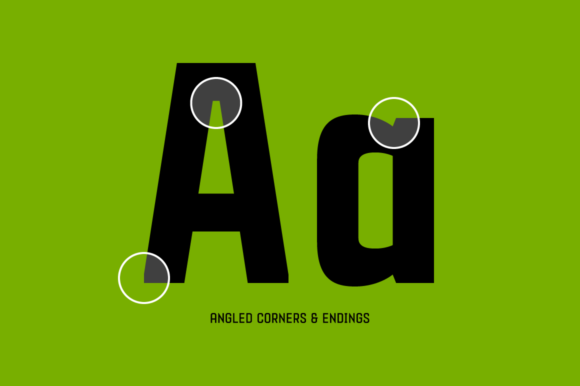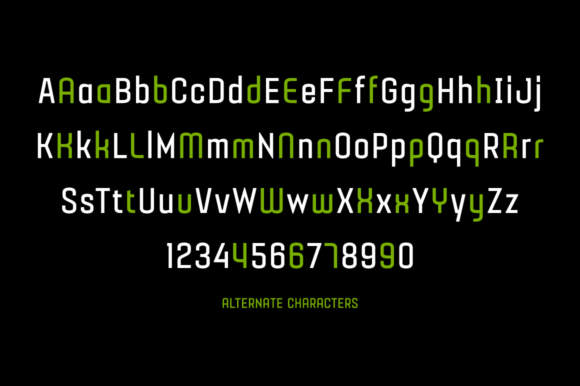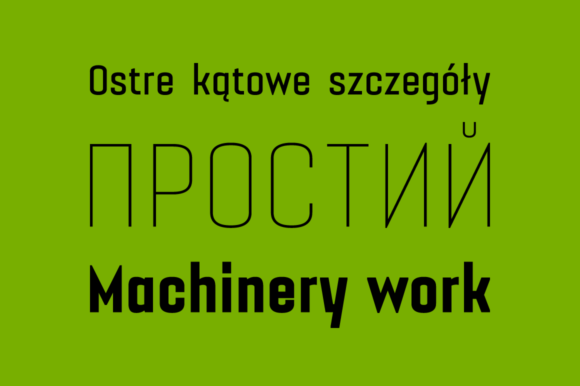
Introducing the Gubia Family Font: A Geometric Sans Serif Typeface
The Gubia Family Font, designed by Pablo Balcells for Graviton Font Foundry, is a modern geometric sans serif typeface that has been crafted to provide a versatile and stylish solution for designers and crafters. With its slightly condensed design, the Gubia font family is ideal for use in a wide range of applications, from headlines and titles to short and middle-length text blocks.
The Gubia font family boasts a classic and clean appearance, making it perfect for designers seeking a modern and sophisticated look. The standard styles offer a timeless and elegant feel, while the alternate styles provide a playful and creative twist. This versatility allows designers to use the Gubia font family in various contexts, from corporate branding and editorials to packaging and digital media.
The Gubia font family consists of 8 styles, including 4 weights and their corresponding alternate styles. Each style features small caps and extensive glyph coverage for several languages, ensuring that the font is both functional and adaptable. This range of styles and features makes the Gubia font family an excellent choice for designers seeking a flexible and reliable typeface.
Weights and Styles
The Gubia font family includes the following weights and styles:
- 4 weights: Light, Regular, Medium, and Bold
- 4 alternate styles: Light Alternate, Regular Alternate, Medium Alternate, and Bold Alternate
- Small caps for each style
- Glyph coverage for several languages
Use Cases
The Gubia font family is well-suited for a variety of applications, including:
- Headlines and titles: The bold and condensed design of the Gubia font family makes it perfect for headlines and titles, where impact and legibility are essential.
- Short and middle-length text blocks: The clean and classic appearance of the standard styles makes them ideal for short and middle-length text blocks, such as articles, editorials, and product descriptions.
- Branding and identity: The versatility of the Gubia font family makes it an excellent choice for branding and identity projects, where a consistent and recognizable visual identity is crucial.
- Digital media: The Gubia font family is optimized for digital use, making it suitable for websites, mobile apps, and other digital platforms.
Design Tips and Tricks
To get the most out of the Gubia font family, consider the following design tips and tricks:
- Mix and match styles: Combine standard and alternate styles to create visual interest and hierarchy in your designs.
- Use small caps: Take advantage of the small caps feature to add a touch of elegance and sophistication to your text.
- Experiment with language glyphs: Use the extensive glyph coverage to create multilingual designs that cater to diverse audiences.
The Gubia Family Font is a versatile and stylish geometric sans serif typeface that offers a range of design possibilities for designers and crafters. With its classic and playful styles, extensive glyph coverage, and adaptability, the Gubia font family is an excellent addition to any design project. Whether you’re working on a branding project, editorial design, or digital media, the Gubia font family is sure to deliver a professional and visually appealing result.